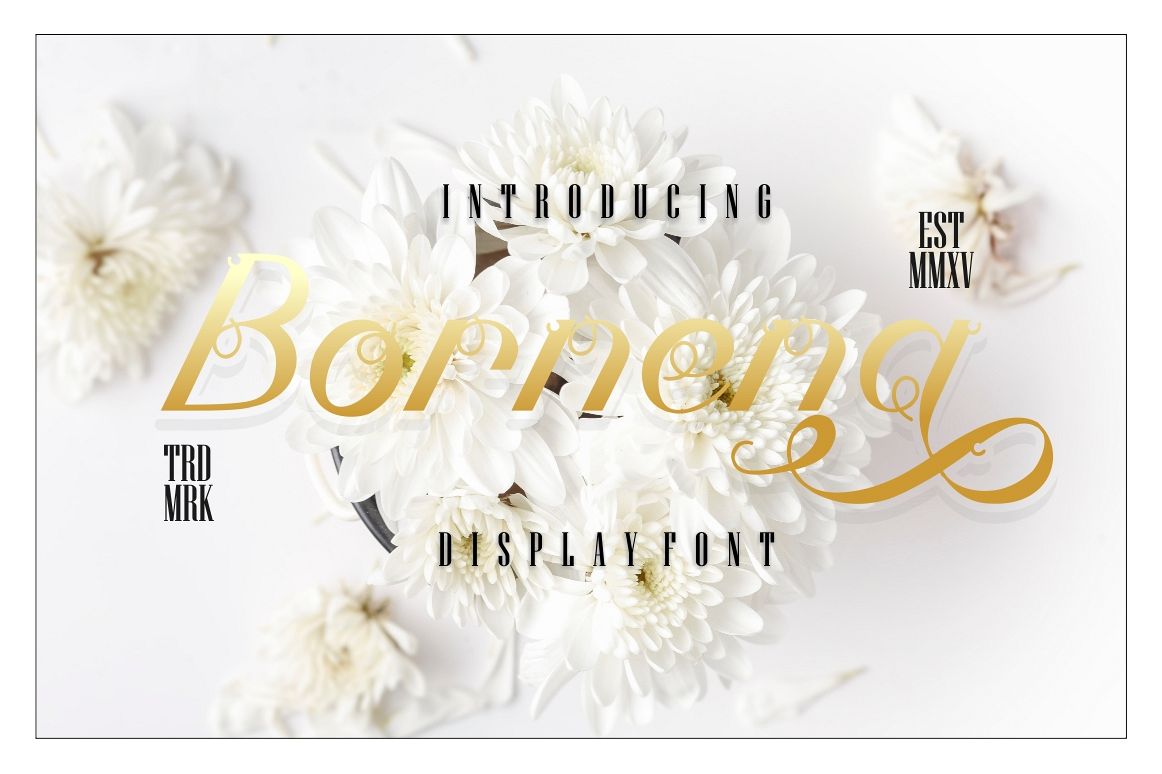
Bornena
Introducing Bornena - a Elegant Display Typeface.
Bornena is great for any kind of display purpose from logos, Tshirt, label, apparel, quote, handwritten quotes, product packaging, tittle header, poster, merchandise, social media, labels, branding & greeting cards.
Bornena has many opentype features like ligature, alternate, swash and also support multi language.
• - Lowercase
• - Uppercase
• - Alternate
• - Number, Punctuation & Symbols
• - Multilanguage Support.